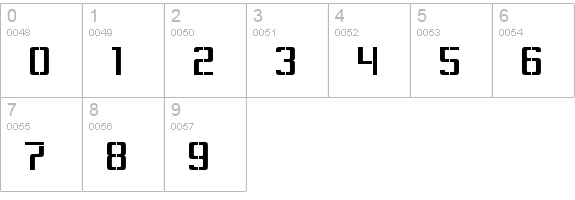
Sorenson font is a beautiful and versatile typeface that effortlessly combines modern aesthetics with classic elegance. With its clean lines and balanced proportions, Sorenson is a perfect choice for a wide range of design projects, from branding and advertising to editorial layouts and web design. This font features a unique blend of sharp angles and soft curves, creating a harmonious and visually pleasing look. Its carefully crafted letterforms exude a sense of sophistication and professionalism, making it suitable for both formal and informal settings. One of the most remarkable aspects of Sorenson font is that it is freely available to download at FontsMarket.com. This means that designers and typographers can access this exceptional font without any cost or restrictions. Its availability as a free download opens up endless possibilities for creative expression and ensures that budget constraints do not limit the access to high-quality typography. Whether you're a seasoned designer or just starting out, Sorenson font is an invaluable addition to your font library. Its versatility and timeless appeal make it suitable for a variety of projects, while its free availability ensures that it is accessible to all. So why wait? Visit FontsMarket.com today and unleash your creativity with Sorenson font.